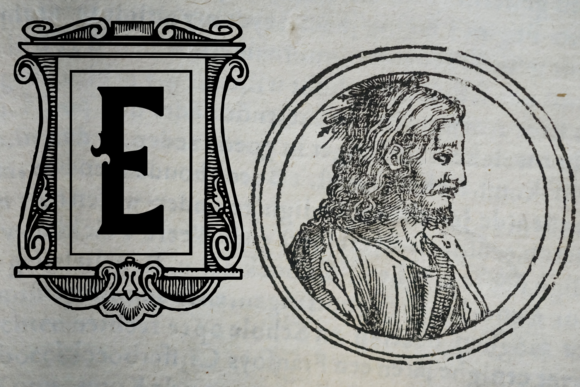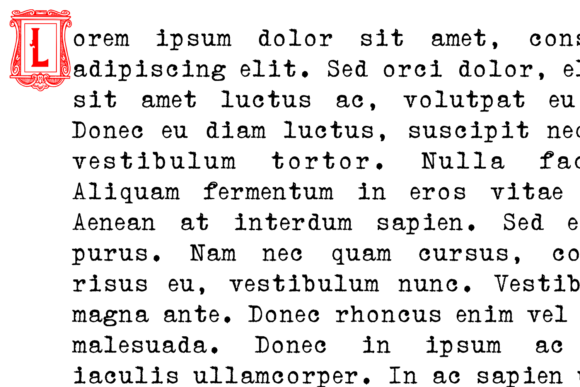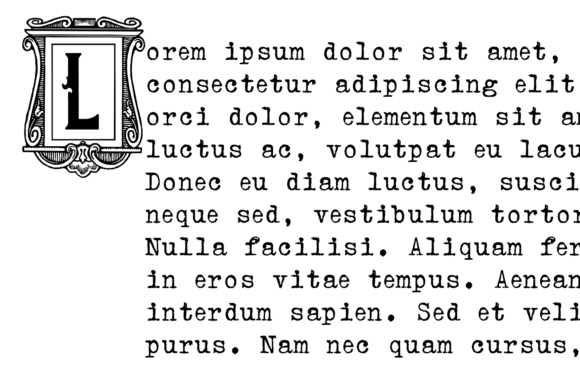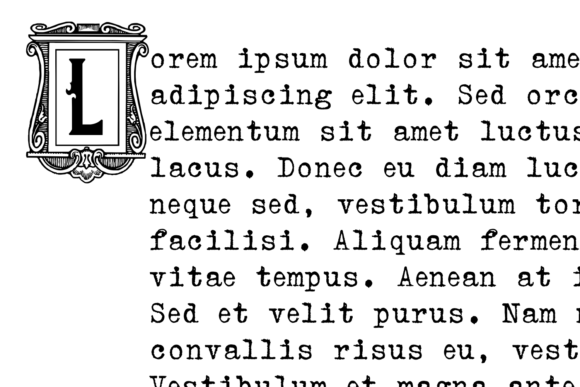
Introduction to Mortised Caps Font Font
Fonts play a crucial role in design, and the Mortised Caps Font font is a typeface that brings both character and versatility to any project. Whether you’re working on a branding project, a website, or a print design, the Mortised Caps Font font offers a unique style that can elevate your work.
Mortised Caps is an incredibly unique and vintage styled decorative font.
This original look will appeal to a wide range of crafty ideas, from letterheads and titles, to stationery .
Key Features of Mortised Caps Font Font
Why Choose Mortised Caps Font Font?
The Mortised Caps Font font is more than just a typeface – it’s a design tool that helps you communicate your message with style and clarity. Its unique character set and versatile design make it suitable for a wide range of applications, from elegant invitations to bold headlines.
With its carefully crafted letterforms and balanced proportions, the Mortised Caps Font font ensures readability and visual appeal across all mediums.
What makes Mortised Caps Font font special?
The Mortised Caps Font font stands out with its unique design, exceptional readability, and versatility across various design applications.